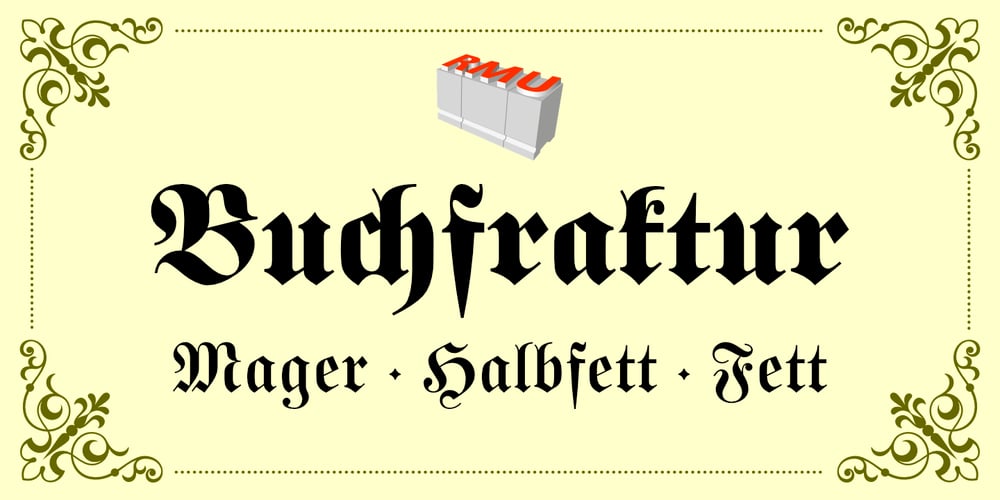
Buchfraktur
Buchfraktur font
Buchfraktur Font Family was designed by Ralph M. Unger and published by RMU. Buchfraktur contains 3 styles and family package options. The late-19th and early-20th century standard blackletter family in Germany, in three weights. To get access to all ligatures, it is recommended to activate both Standard and Discretionary Ligatures. You find the round s on the # key, and by typing the combination N-o-period and activating the OT feature Ordinals you get the numero sign.